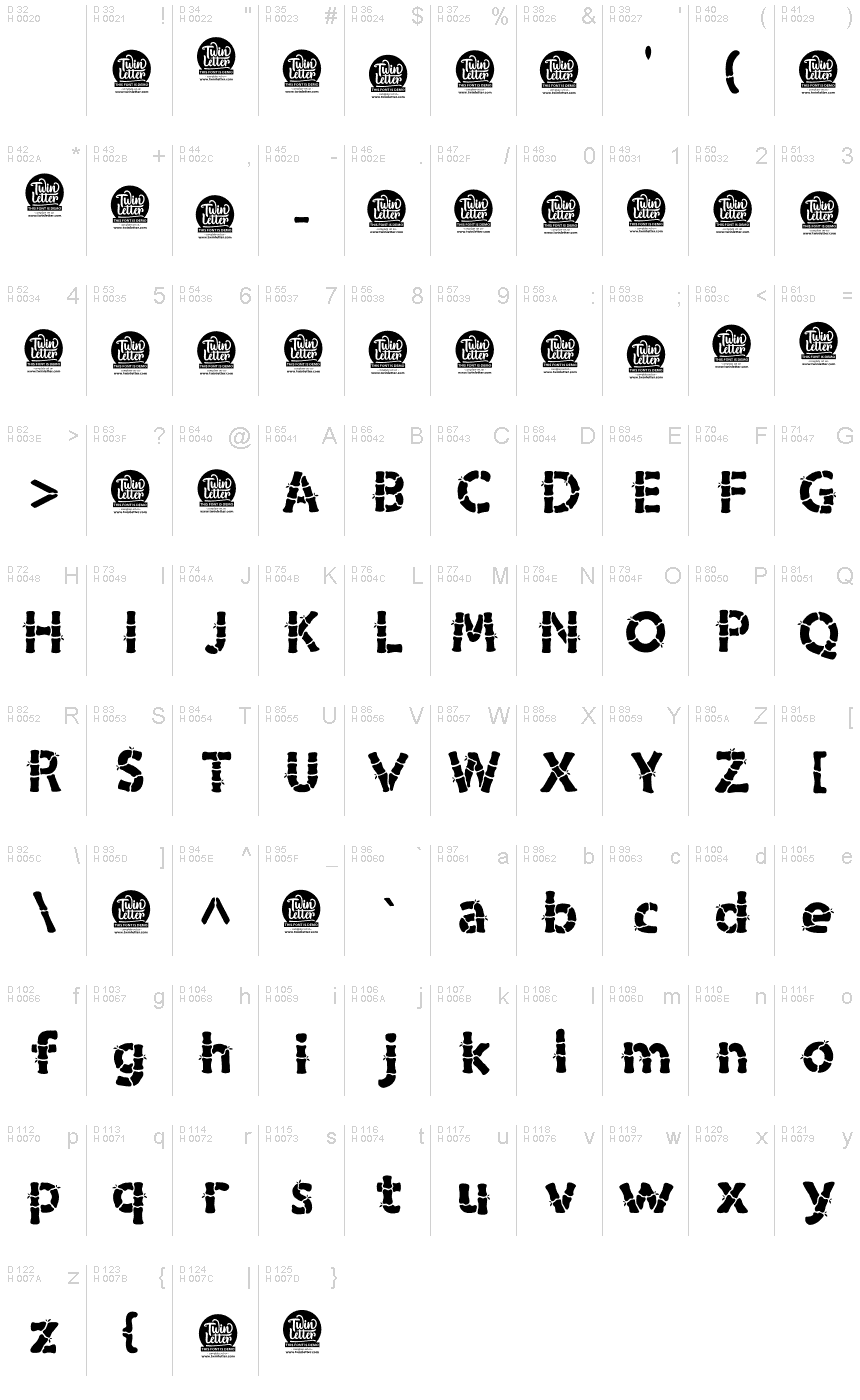
Pethuk Personal Use
Pethuk is a bold and playful display font designed by twinletter. Its cartoon style is perfect for projects that require a fun and childlike vibe, such as children's books, toy packaging, and birthday invitations. The thick, bold lines of Pethuk make it an excellent choice for headlines and titles that need to grab attention quickly. This typeface has a wide range of applications due to its versatility in design. The font's exaggerated shapes are ideal for creating unique logos or adding character to social media graphics. Pethuk is the perfect font for designers looking to add some fun and whimsy to their projects while still maintaining a professional edge.